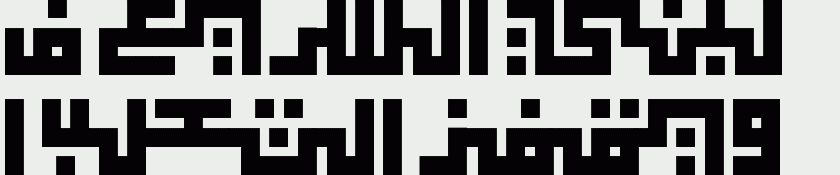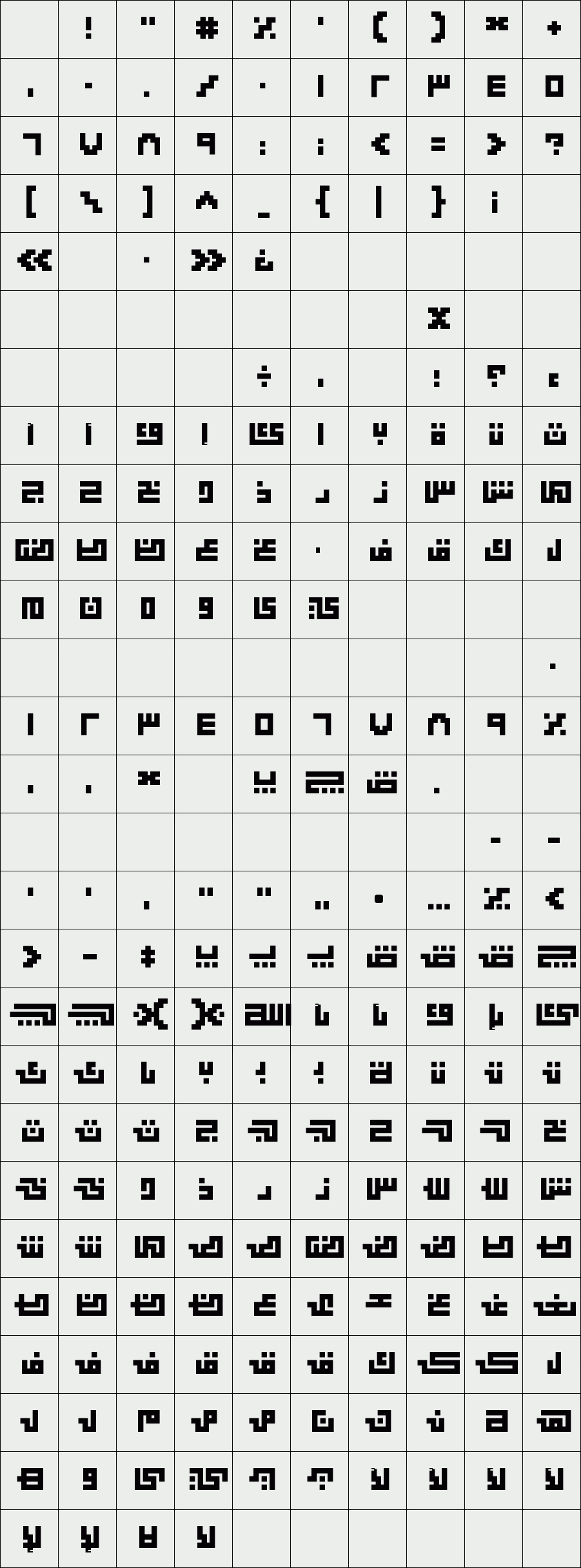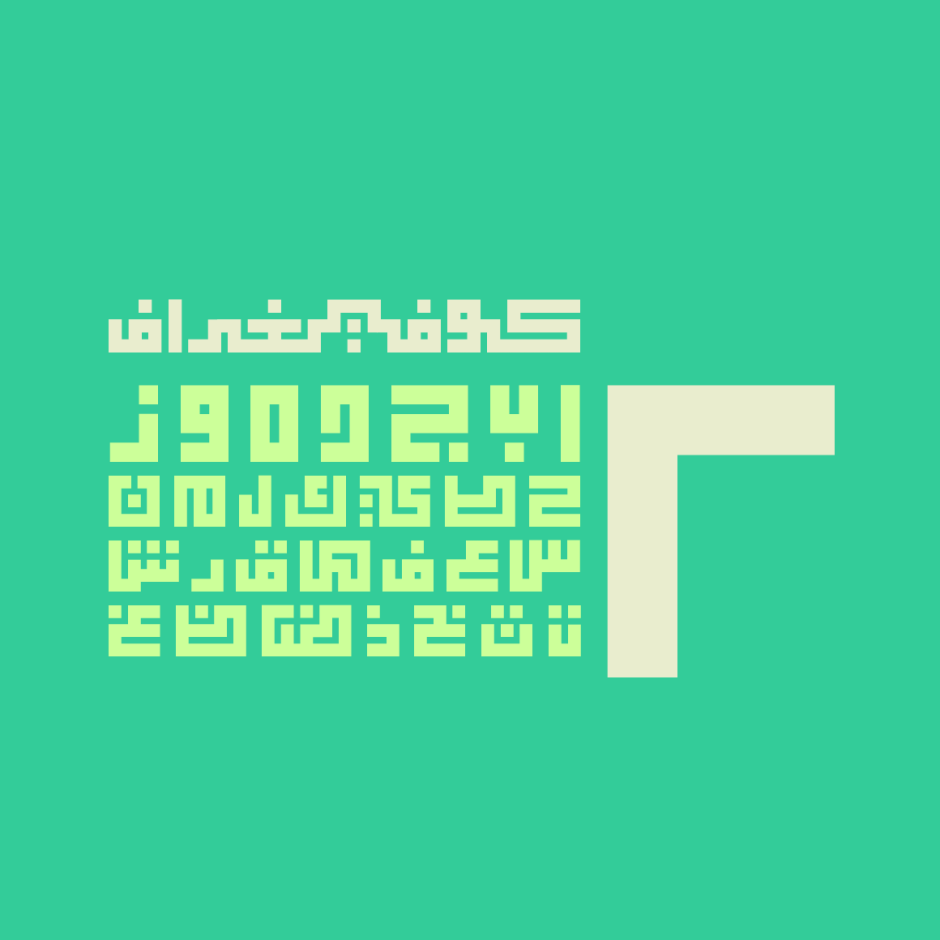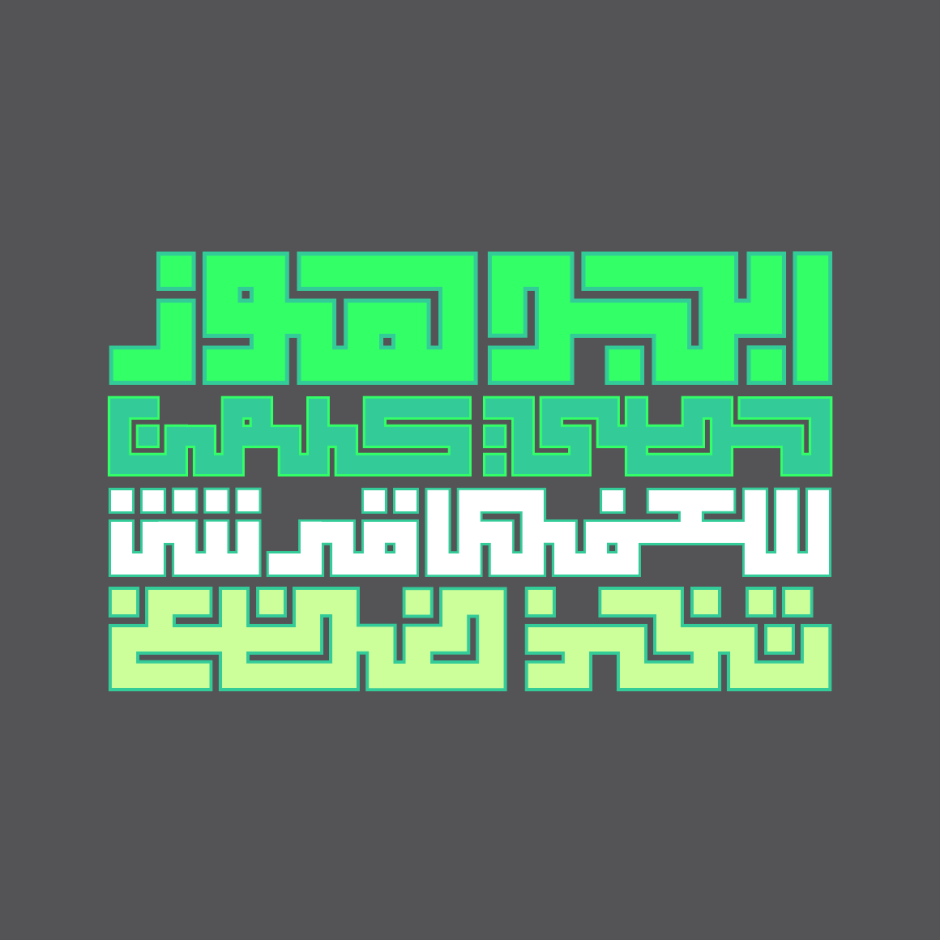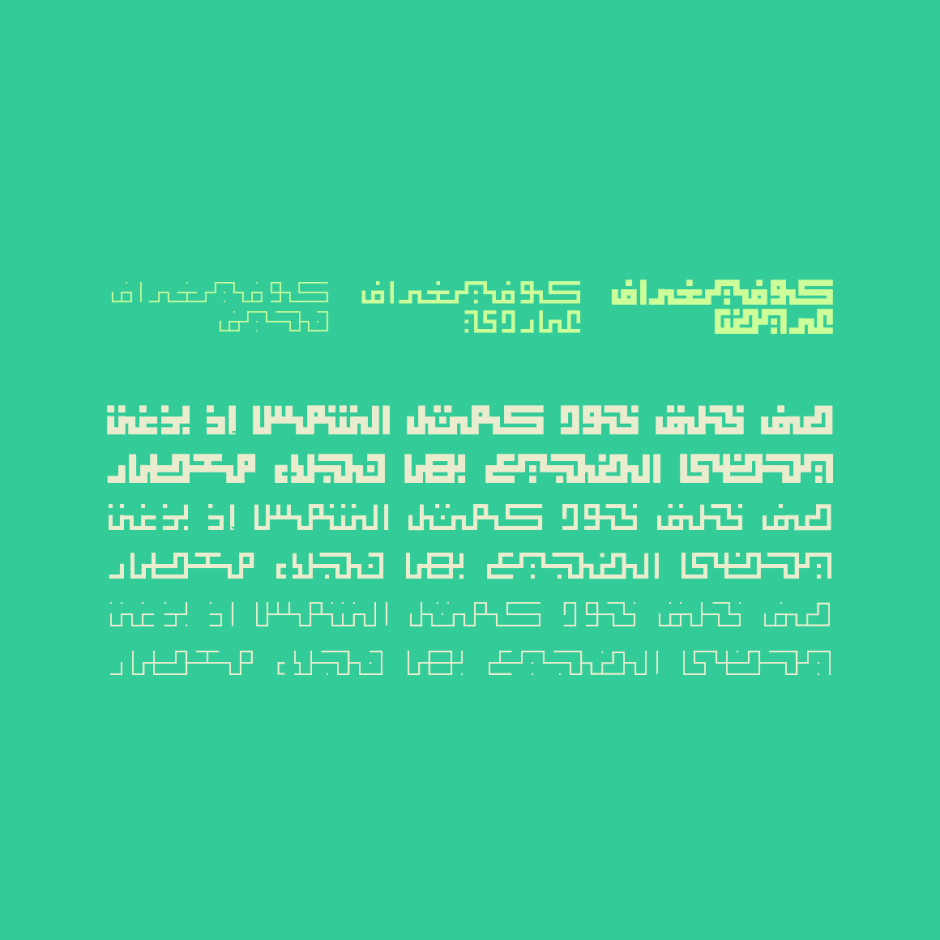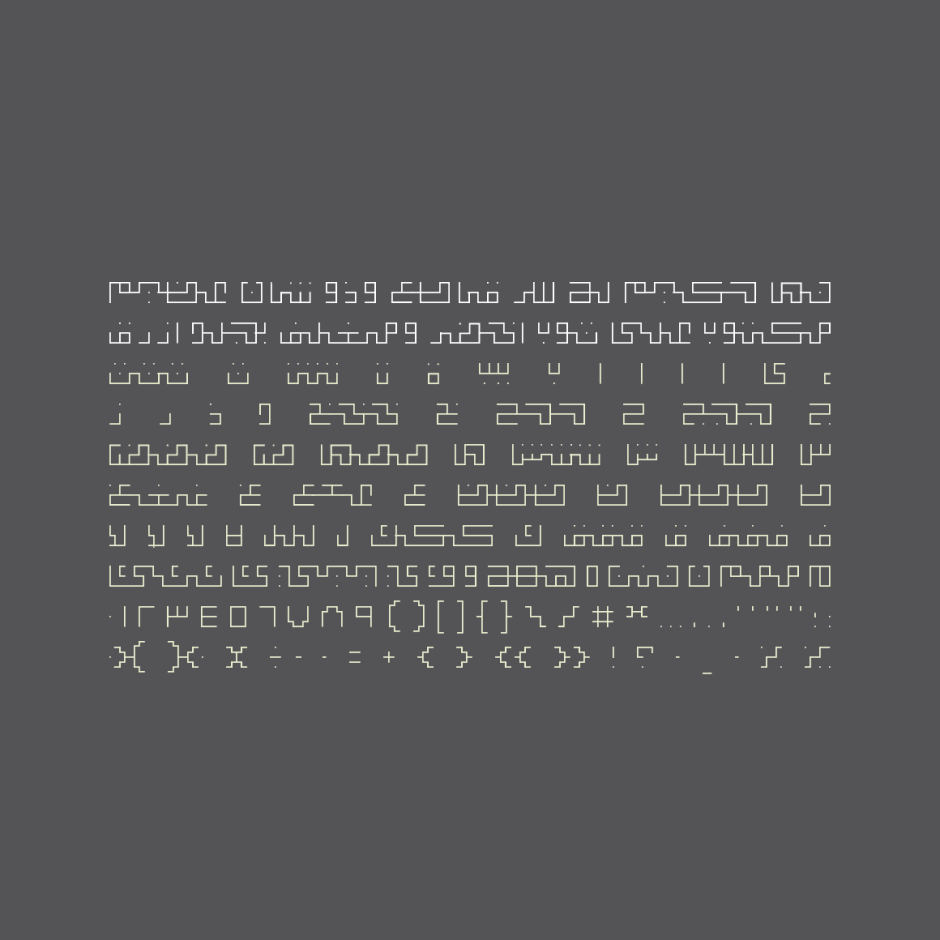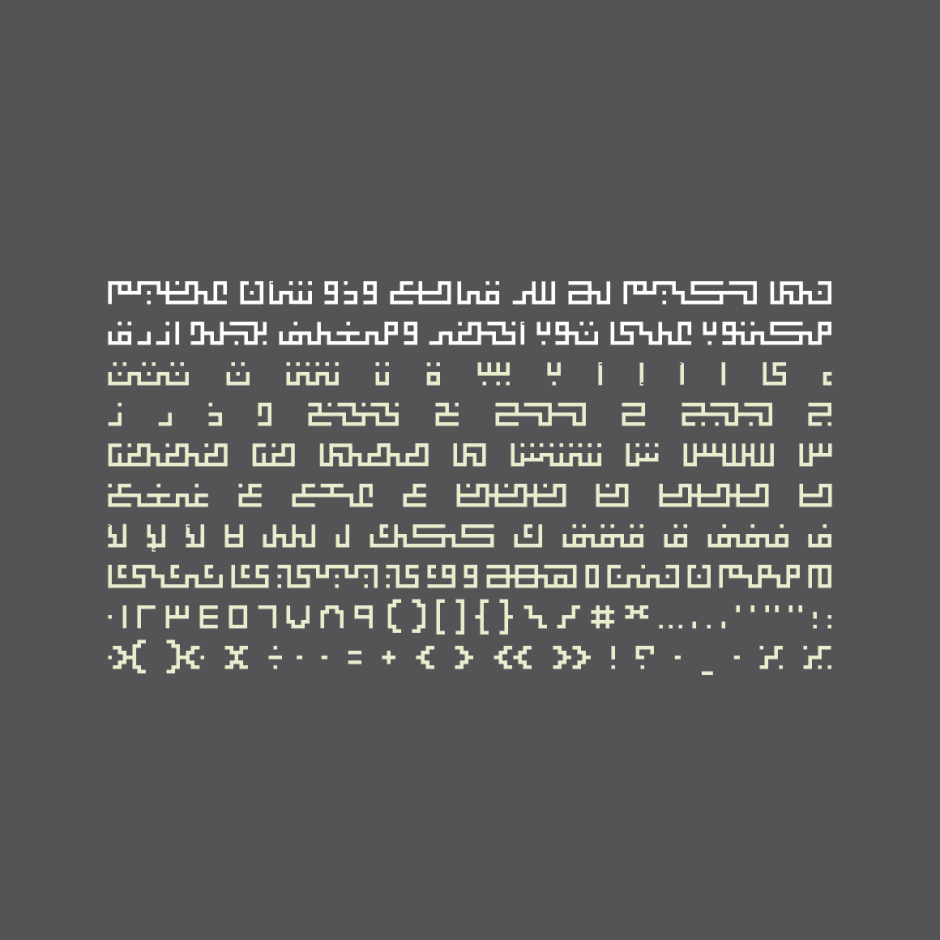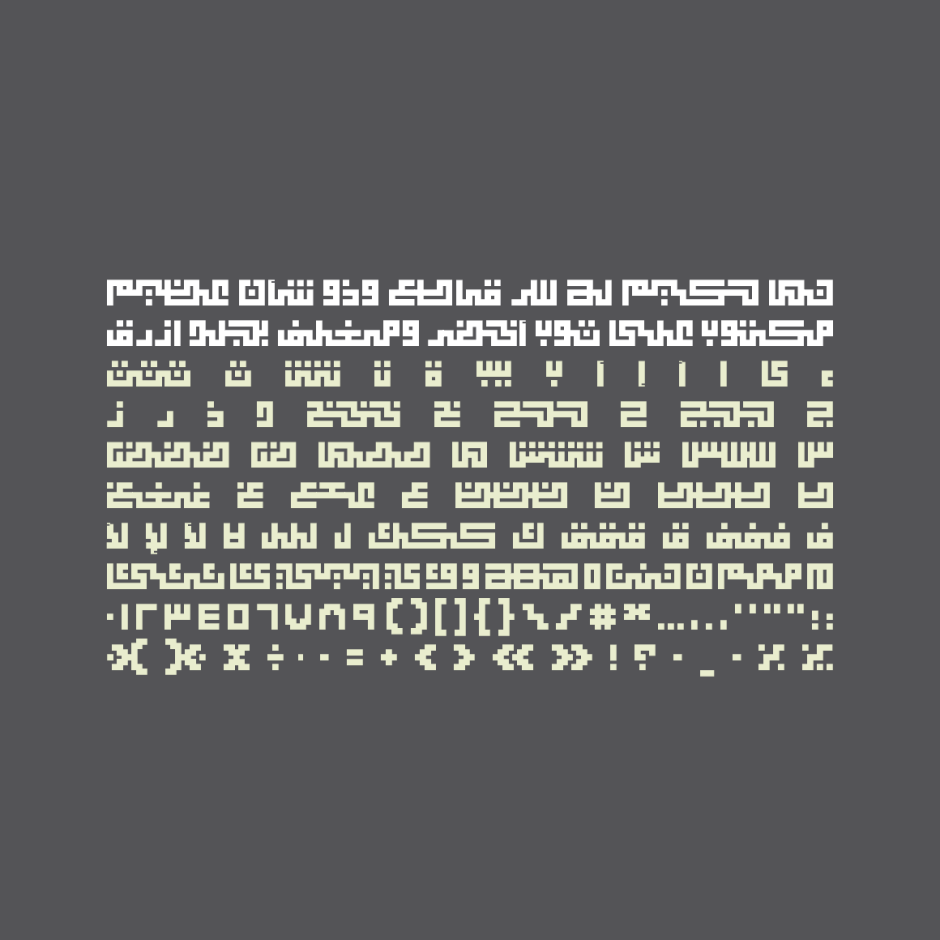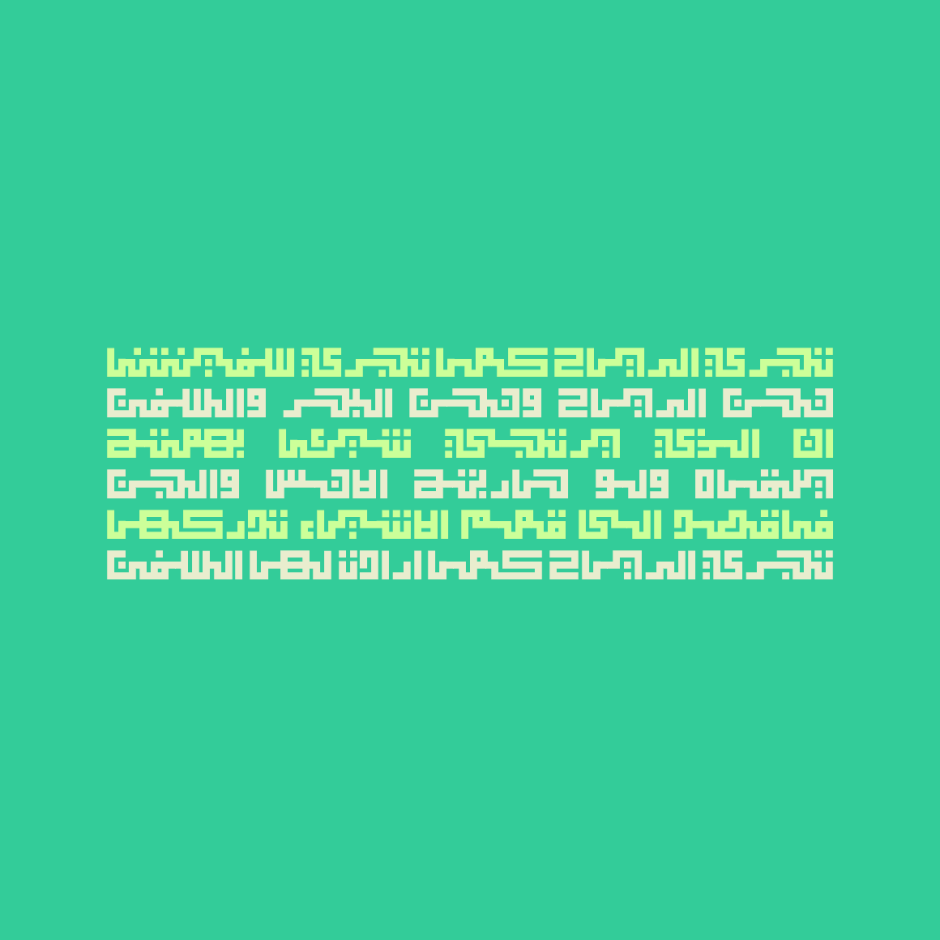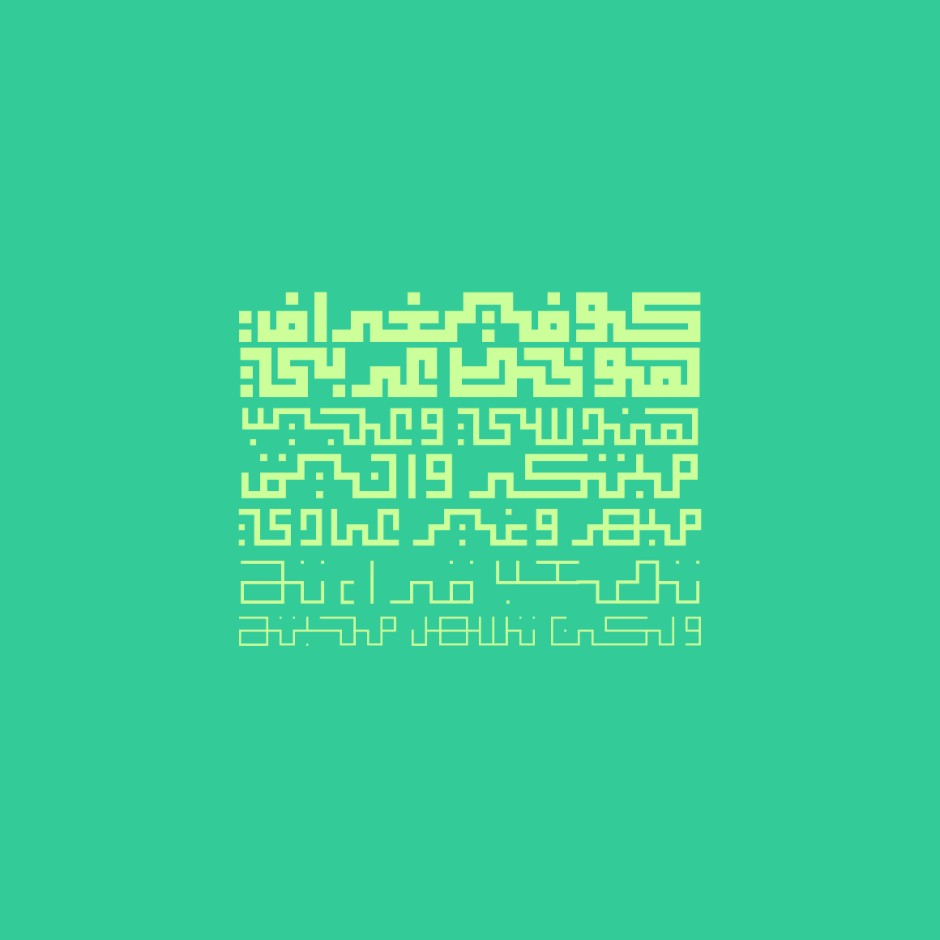
Kufigraph
Kufigraph is an Arabic display font that features a unique geometric structure. Unlike traditional anatomy of the Arabic script, Kufigraph's baseline is centered between ascenders and descenders. The anatomy of some letters was completely re-designed to meet the new structure and to develop a unique typing experience. Kufigraph comes in three weights; light, regular and bold and it suits creative titling